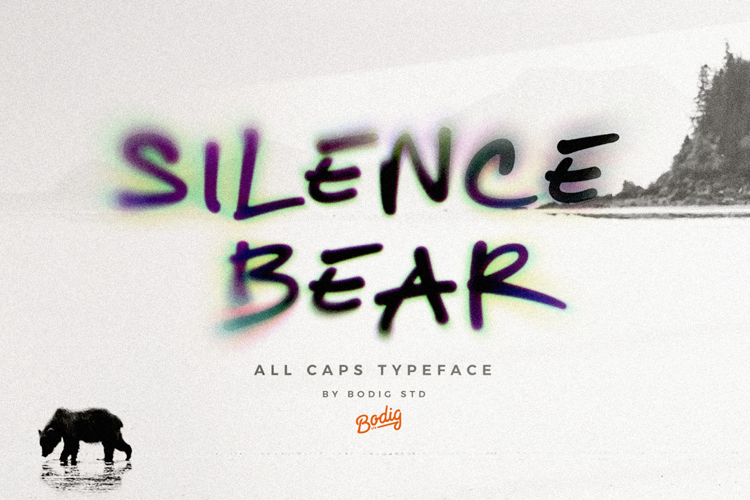
Silence Bear Font
Silence Bear typeface is handwritten All caps font with fast signature style energetic make your mark with wild and natural – It’s guaranteed to leave a lasting impression on any design project, it would be very interesting if combined especially with a contrasting clean font. Use this font for your designs and explore its endless possibilities.